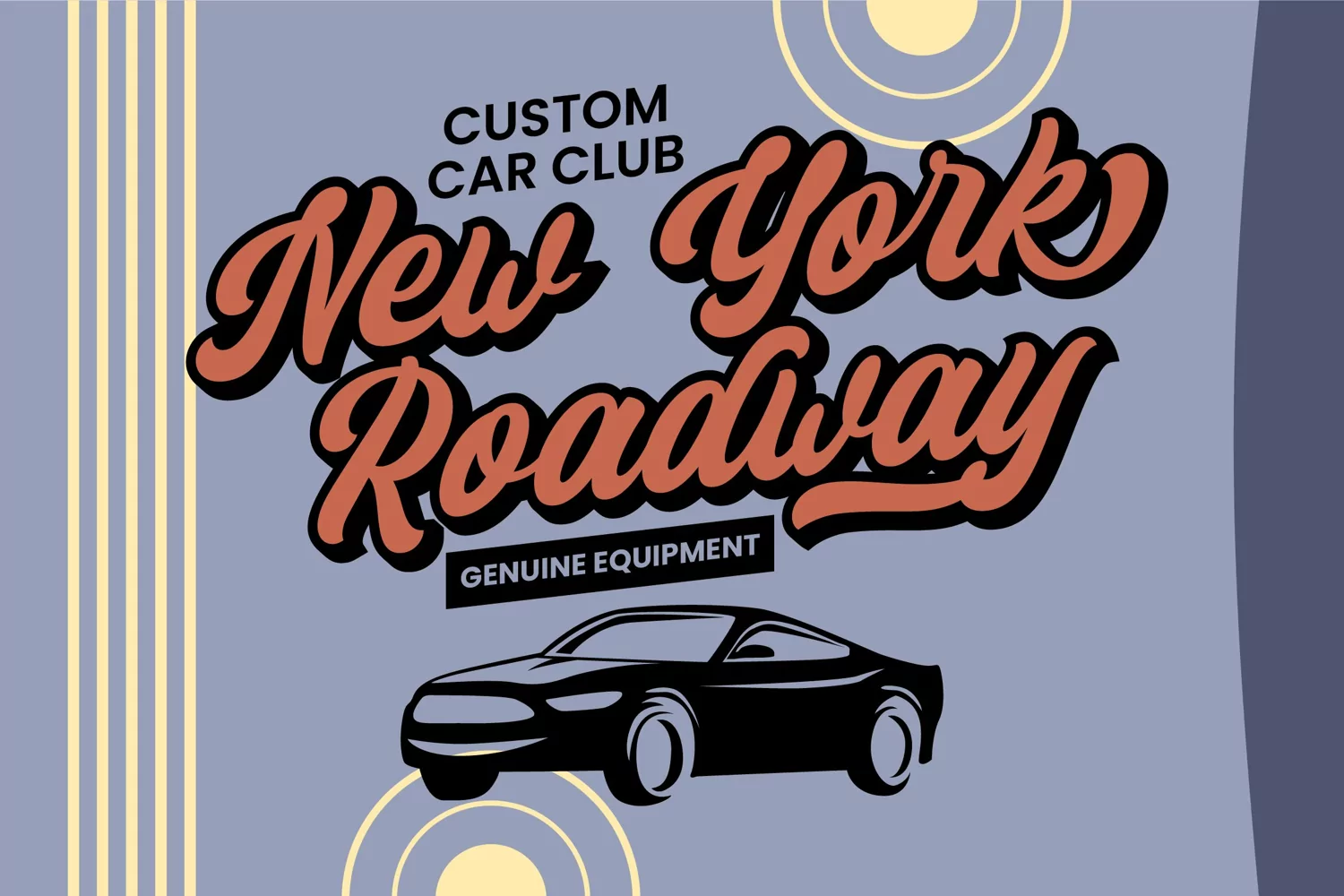
Helmida is a distinct and graceful retro script font. Fall for its ravishing style and use it to create gorgeous designs. This font is PUA encoded which means you can access all glyphs and swashes with ease!